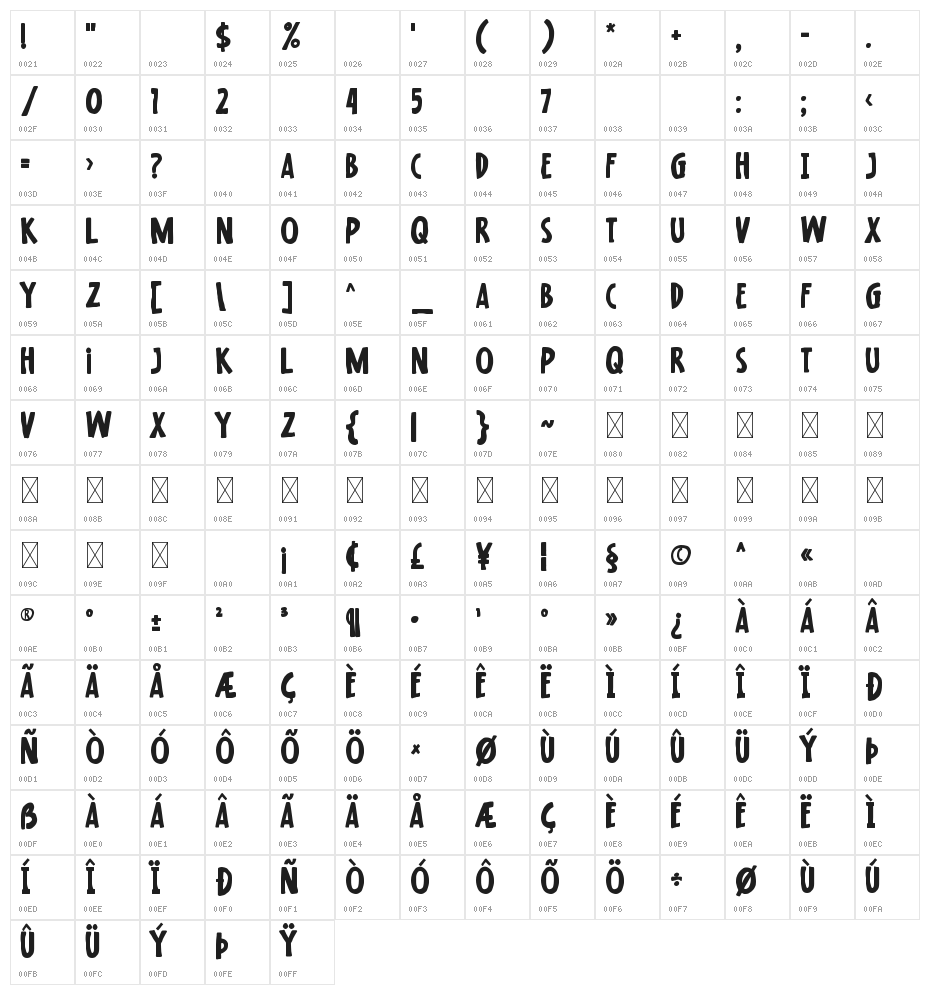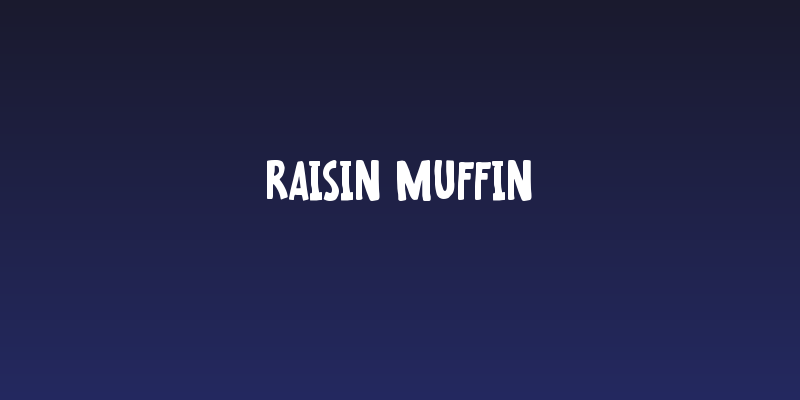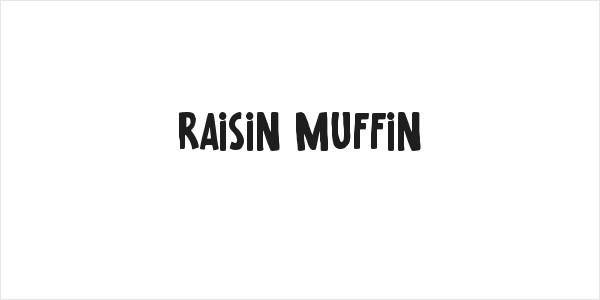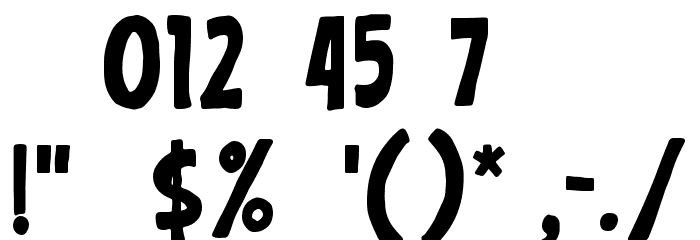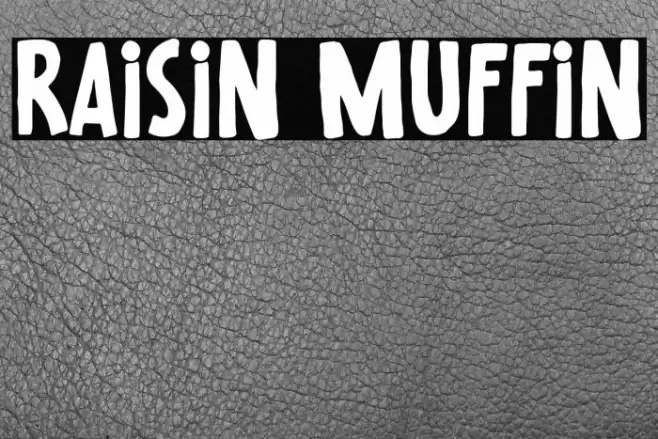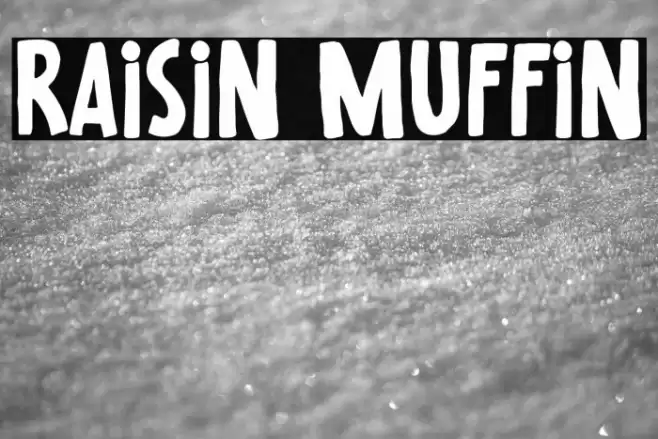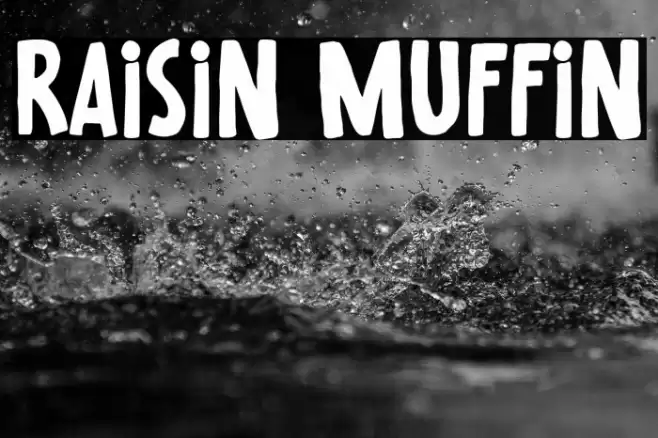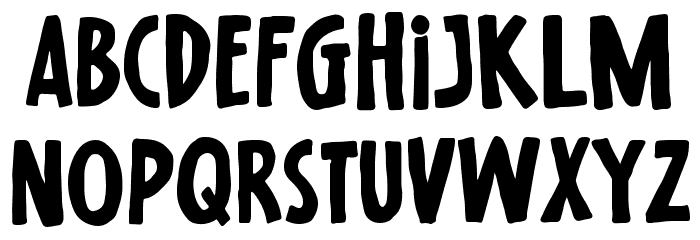
Raisin Muffin Font
Raisin Muffin Description
This font exhibits a playful and bold style, characterized by its hand-drawn appearance. The letters are thick and slightly irregular, giving it a casual and friendly vibe. The uppercase and lowercase letters maintain a consistent weight, contributing to its cohesive look. Numbers and special characters are designed with the same playful aesthetic, ensuring uniformity across all glyphs. The font's organic feel makes it suitable for projects that require a personal touch or a sense of whimsy. Its boldness ensures readability while adding a distinctive flair.
| Proposed Projects | Ideal for children's books, playful branding, casual invitations, and creative posters. |